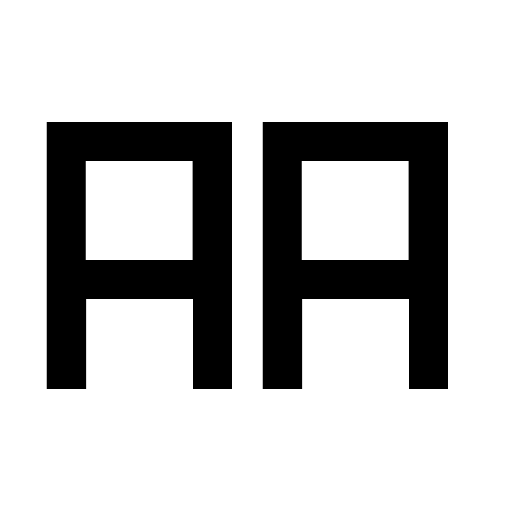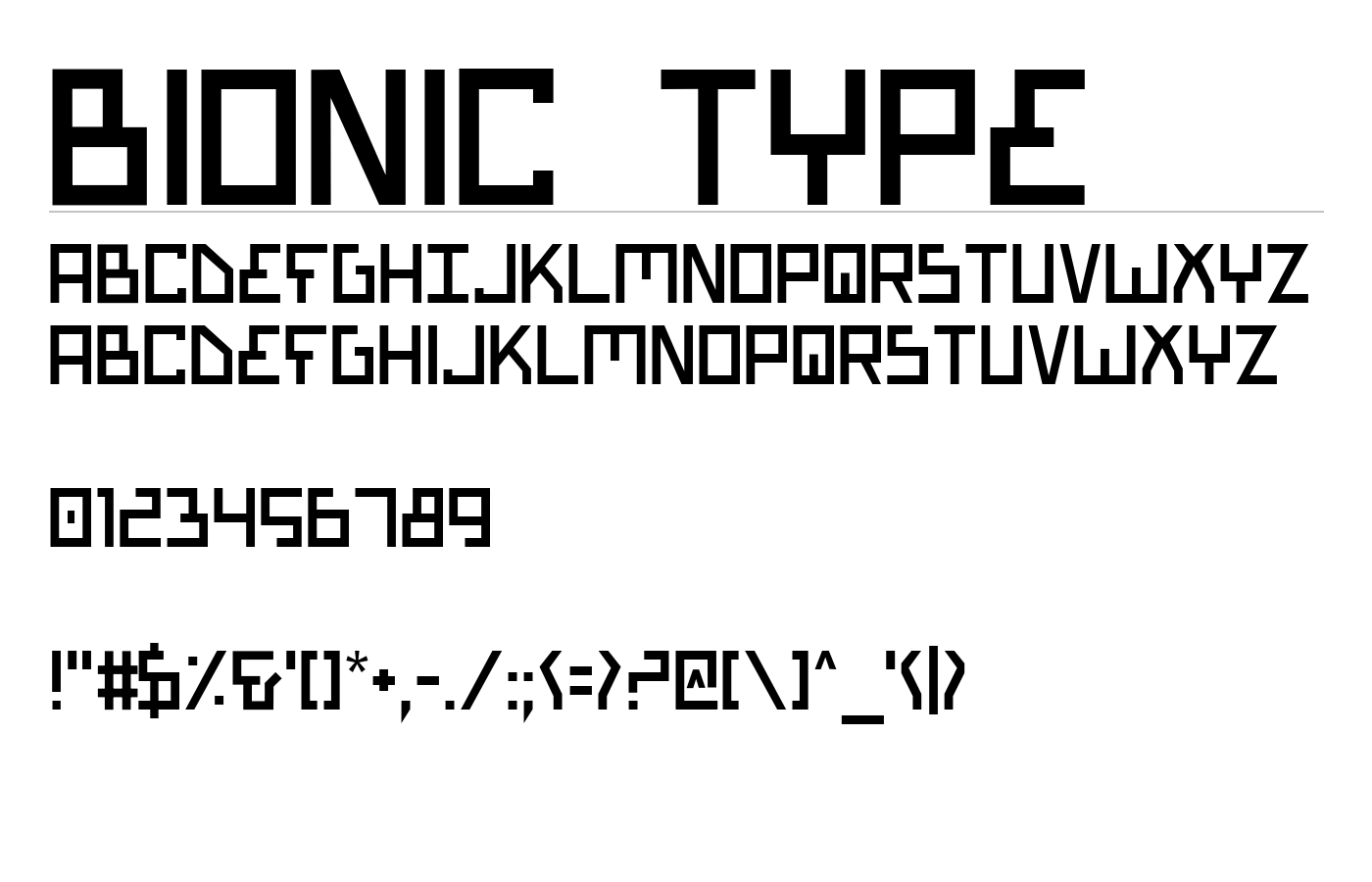
Bionic Type is a geometric, monospaced sans serif font that features a bold and squared-off design with sharp angles and uniform stroke weight. Its modern, tech-inspired look makes it ideal for futuristic branding, digital interfaces, and creative headlines where a strong, mechanical aesthetic is desired. This font works well in projects needing a clean yet distinctive style that stands out with a robotic, cutting-edge personality.
Bionic Type Font